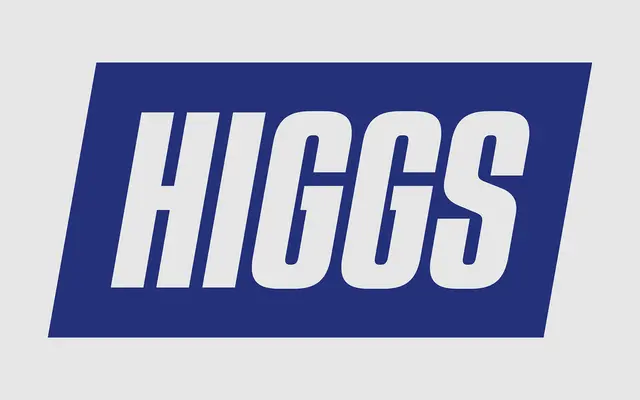
A narrow, square-cut display family with reverse ink traps at stem-bowl junctions, drawing on both sci-fi aesthetics and 19th-century wood poster types.
Seven weights with matching italics make up this display family, its character defined by a reverse ink trap treatment where stems meet bowls, producing a sharp, slightly notched quality unusual among contemporary typefaces. The narrow, upright construction recalls the condensed wood types of Victorian poster printing, while the overall squareness edges it towards a science-fiction visual vocabulary. Latin-based language support is broad, making it usable across Western European markets.
A narrow, square-shaped display typeface blending sci-fi aesthetics with 19th-century wood type sensibility; the reverse ink trap treatment at stem-bowl junctions makes it too stylised for body text, firmly placing it in the display category.